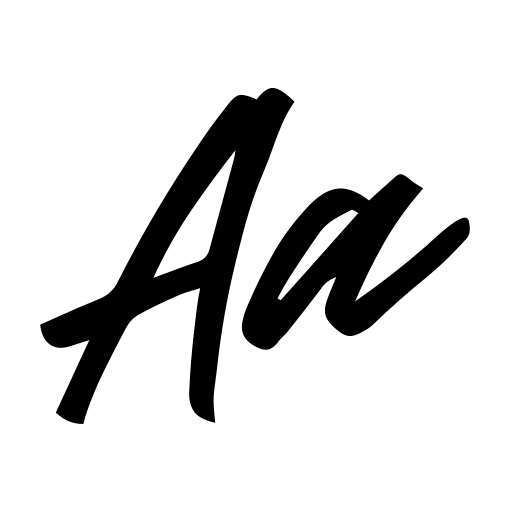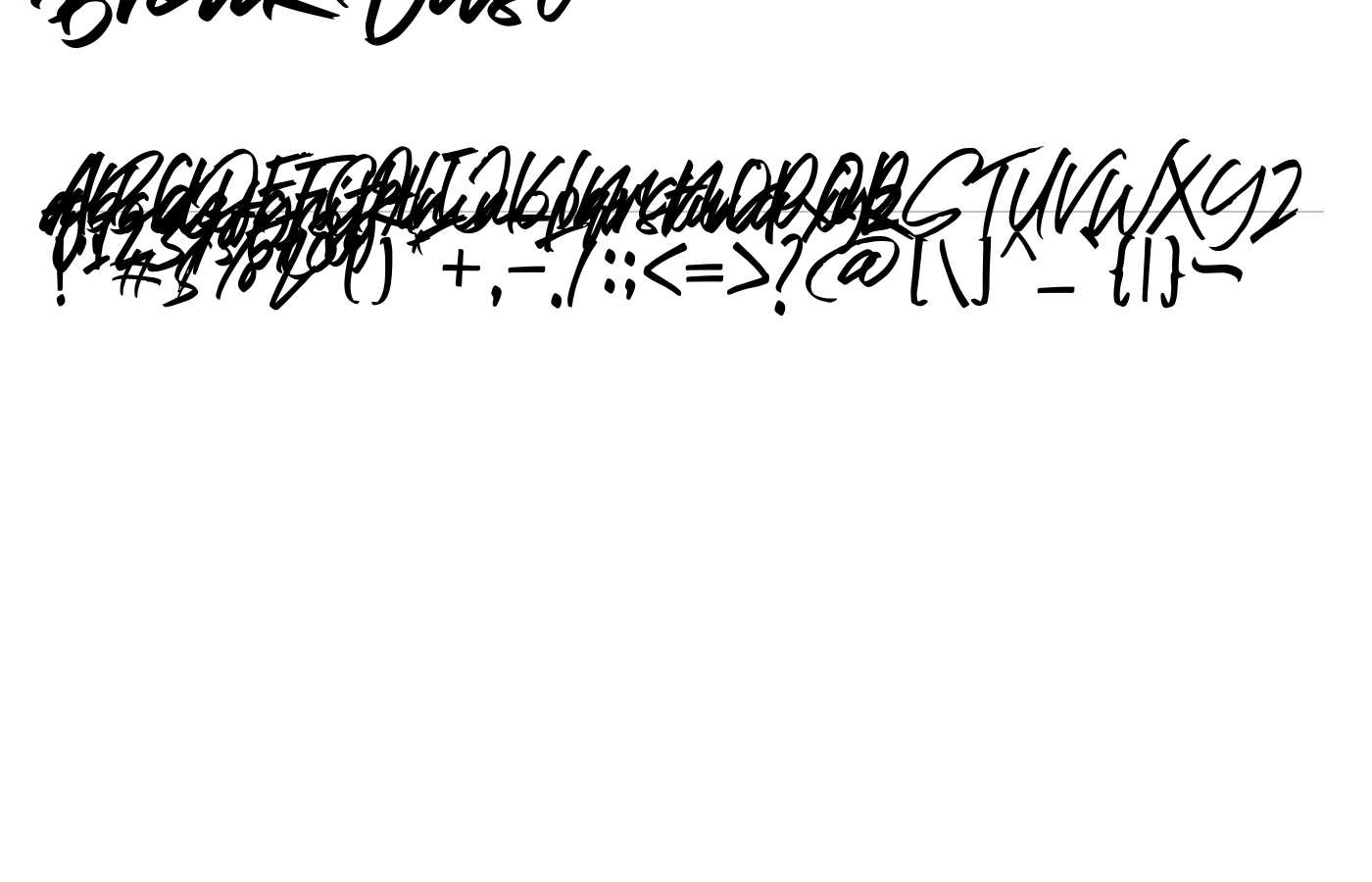
Break Dust is a dynamic handwritten script font with bold, energetic strokes that convey a raw, artistic vibe. Its irregular, brush-like letterforms give it a spontaneous and edgy feel, perfect for expressive branding, creative projects, and striking headlines where personality and movement are key. This font works best in designs that aim to stand out with a youthful, rebellious spirit.
Break Dust Font
About Break Dust Font